In the competitive landscape of modern advertising, the right typography is paramount to capturing attention and defining a powerful brand identity. Leveraging the impact of meticulously designed advertising fonts can dramatically elevate your campaigns, ensuring your message is not only seen but truly resonates with your target audience, fostering memorability and engagement. Fortunately, the digital marketplace offers an incredible array of these essential tools, from sleek modern sans-serifs and elegant scripts to bold display faces, providing the perfect visual voice for any marketing endeavor. Discover the vast potential and diverse styles available to transform your next project into an unforgettable visual statement.
#1 Product 1
#2 Rinjani Sans Font
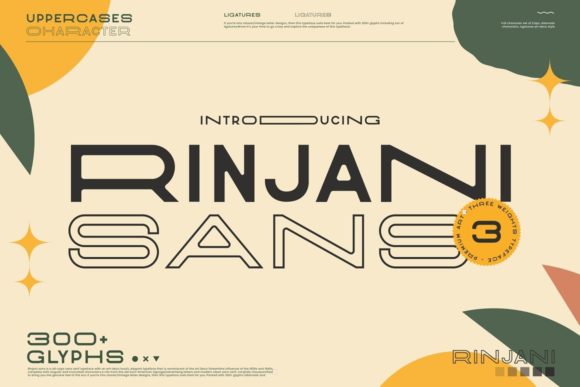
Rinjani sans offers a captivating blend of vintage-futuristic art deco and classic Euro-American signage, infusing your designs with a genuine, contemporary flair. This carefully crafted all-caps sans serif is PUA encoded, making all its unique glyphs and swashes effortlessly accessible.
#3 Gerardo Font
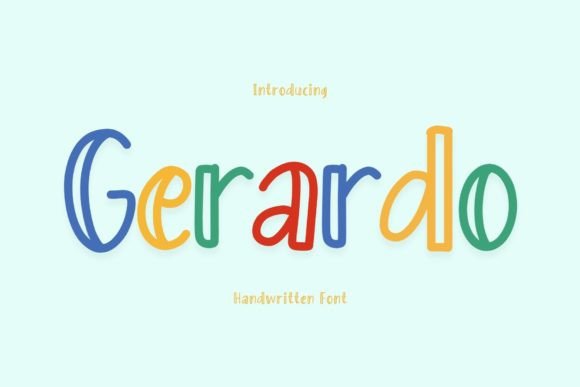
Elevate your designs with Gerardo Font, the versatile typeface that masterfully blends classic sophistication with a contemporary edge. Its clean lines and balanced proportions bring a professional, timeless elegance perfect for branding, editorial, and advertising, ensuring every project is visually stunning and memorable.
#4 Smoothie Cookies
#5 Kangu Font
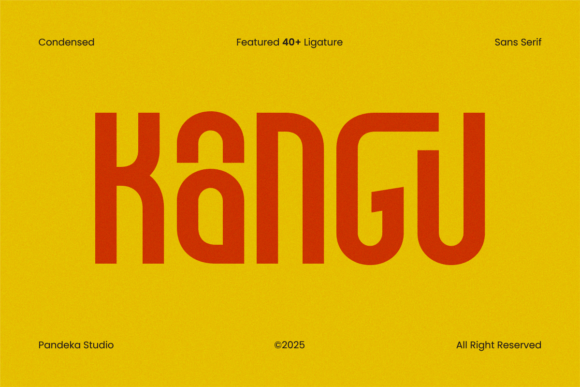
Meet Kangu, the bold, futuristic sans-serif font engineered for cutting-edge designs. Its sharp angles and dynamic style are perfect for tech, esports, automotive, and modern advertising, offering full multilingual versatility to deliver maximum impact.
#6 City Hall History Font
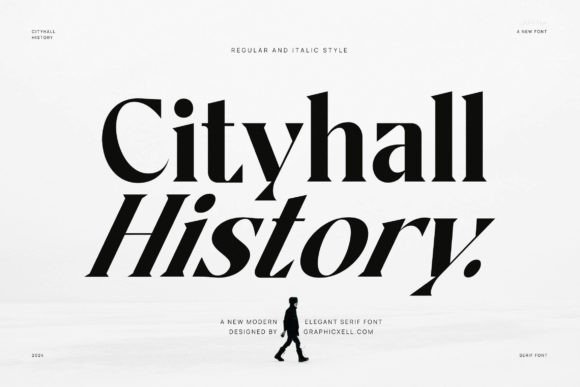
Inspired by the rich heritage of Italian typography, Cityhall History is an elegant serif font that beautifully blends classic bravery with modern style. Its high-contrast strokes, delicate serifs, and unique reversed diagonal axis exude enthusiasm, making it perfect for captivating logos, fashion, and editorial designs that demand engagement.
#7 Prestoria
#8 Belanya
#9 Casmera Font
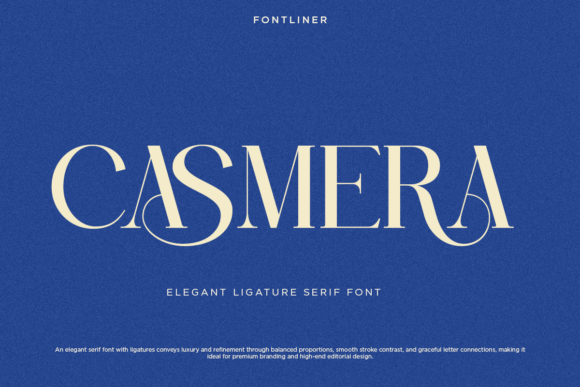
Elevate your designs with Casmera, an elegant ligature serif font crafted for luxury, refinement, and timeless sophistication. Its graceful curves and artistic ligatures create a premium aesthetic, delivering exclusivity and emotional impact across high-end branding, fashion, and editorial projects.
#10 Marseille 4
#11 Crown Family
Elevate your designs and craft projects with this brilliant new resource from Creative Fabrica. It's curated to fuel your imagination and help you create something truly unique.
#12 Glimolle Font
Glimolle is an elegant, modern serif typeface designed to infuse contemporary projects with sophistication and charm. Its graceful curves and refined letterforms offer a distinctive yet highly readable visual presence, making it ideal for luxury branding, editorial layouts, and fashion campaigns that demand timeless style.
#13 Avelina
#15 Clara Sydney